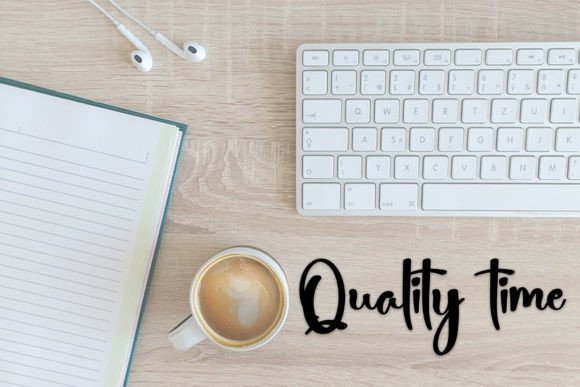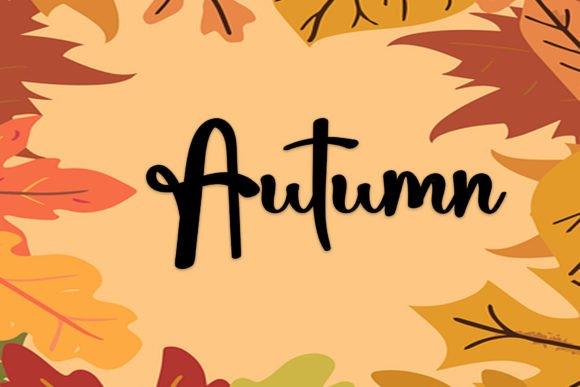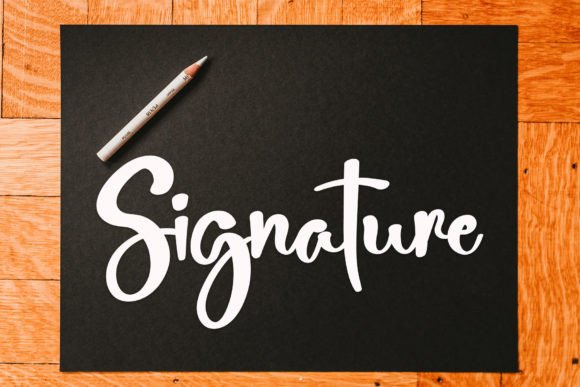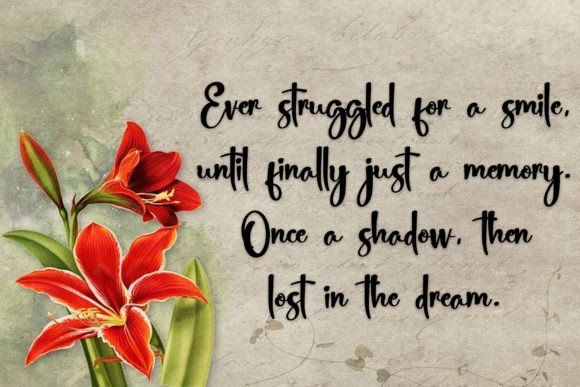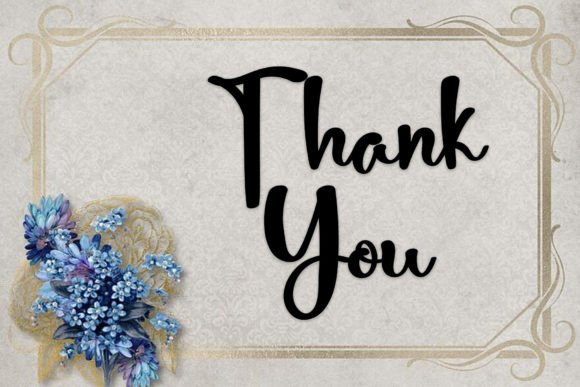
Introduction to Imagine Font
Imagine is a stylish handwritten font with a contemporary atmosphere and impeccable form, inspired by timeless classic calligraphy.
Balanced and varied, this font was designed to enhance the beauty of your projects This font is PUA encoded which means you can access all of the amazing glyphs and ligatures with ease.